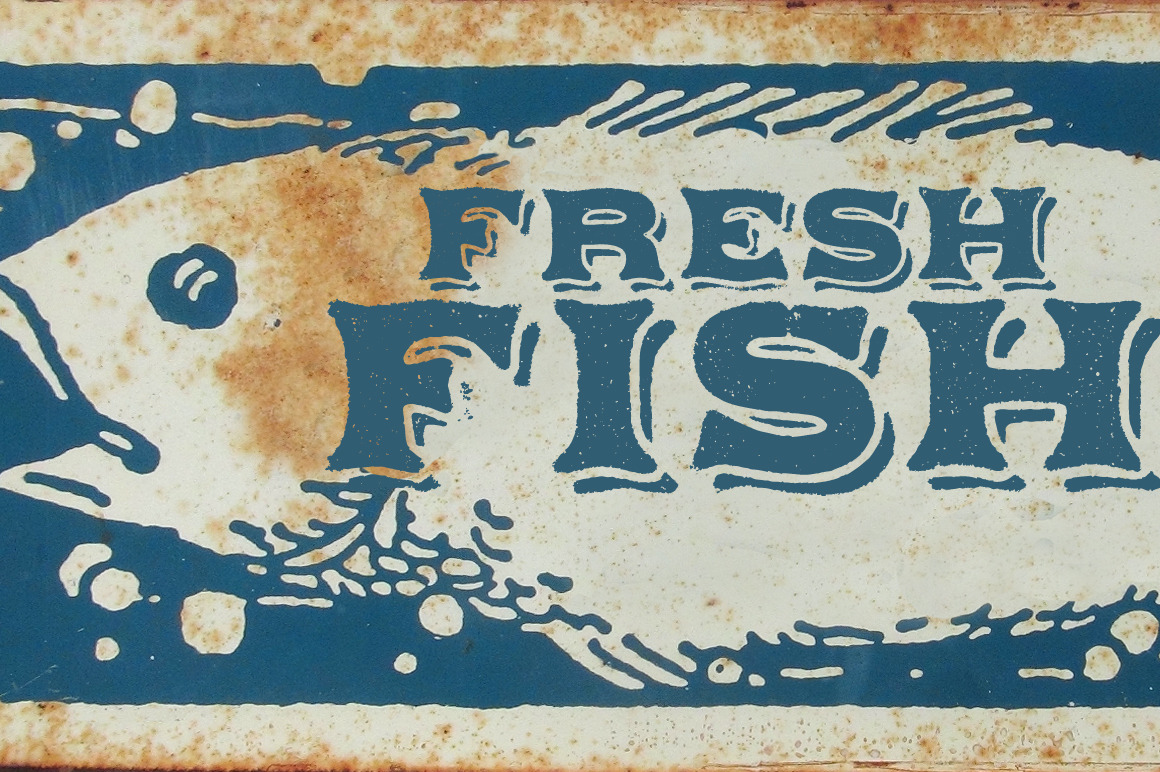
Applewood font
With its distinctive imperfections and old fashioned sensibility, Applewood™ imparts a unique flavor to your project. The Applewood family has three fonts; Regular, Alternate and Shadow, and use OpenType features to substitute a unique pairing of characters when any upper or lower case letter is keyed twice in a row, as well as features for Old Style Numerals and Small Caps. The Applewood Shadow font can be overlapped with Applewood Alternate to color the drop shadow separately. The Applewood fonts are available as a family or individually: